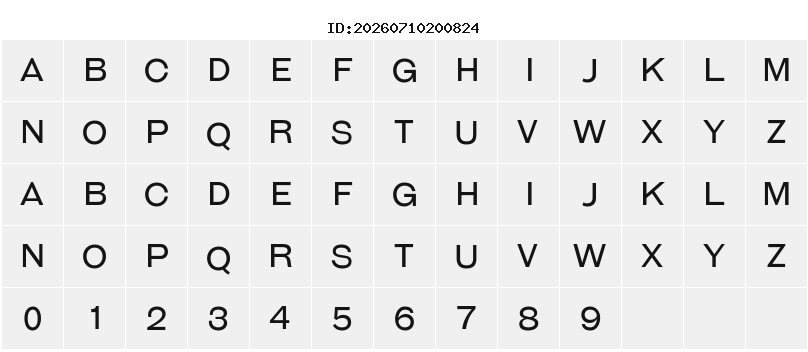
Galderglynn Titling Bk Preview
• Font Name: Galderglynn Titling Bk
• Full Font Name: GalderglynnTitlingBk-Regular
• Designer: Ray Larabie
• Manufacturer: Ray Larabie
About Galderglynn Titling Bk.ttf
Galderglynn Titling Bk.ttf is a modern, elegant sans-serif font designed for ultimate readability and visual harmony. Perfect for branding, headlines, web design, and print materials.